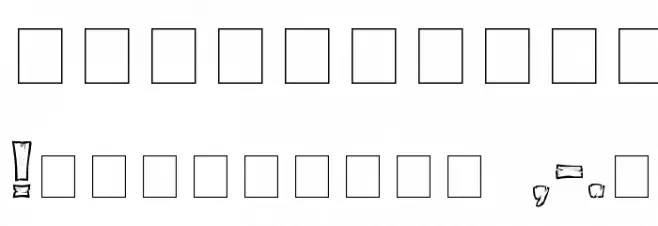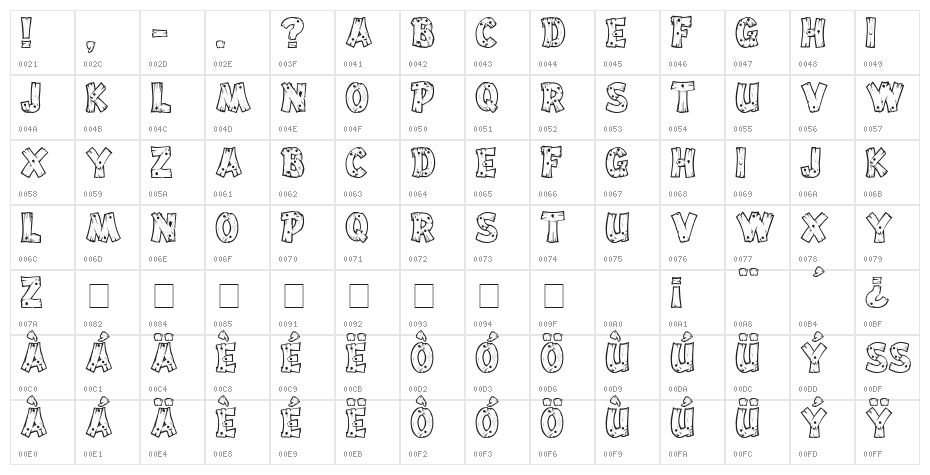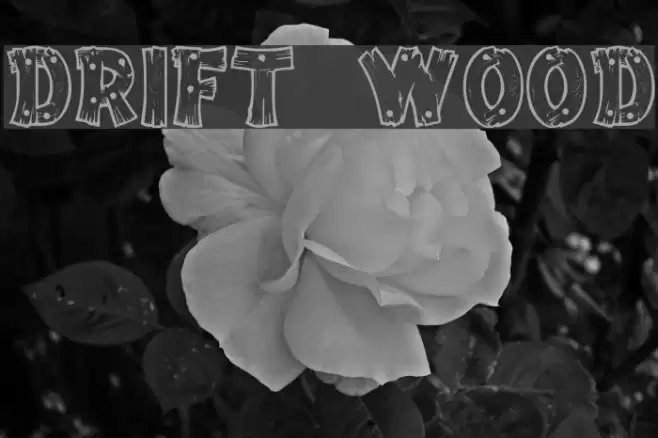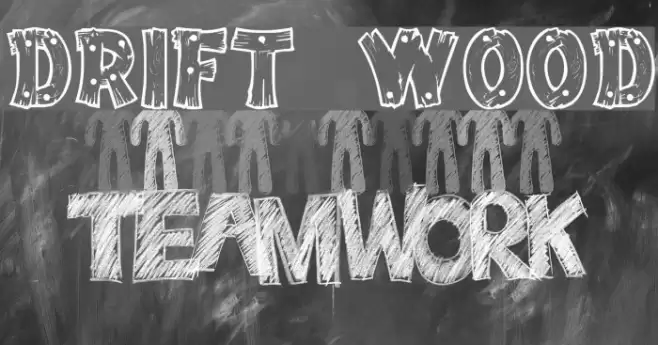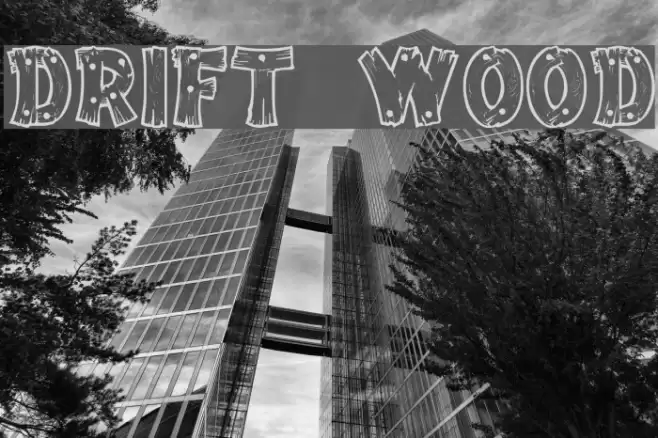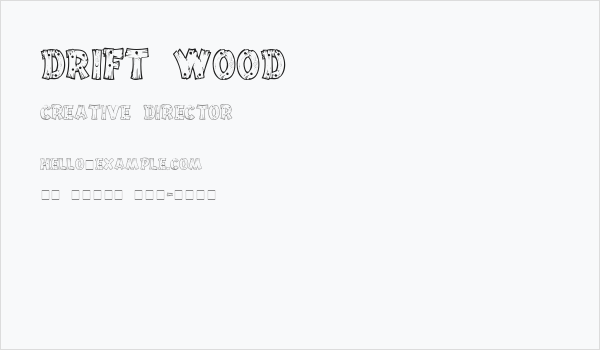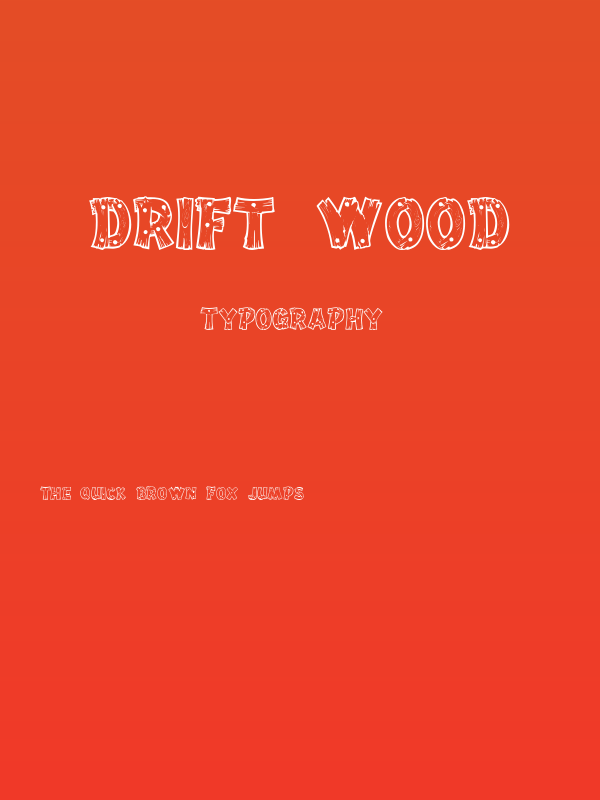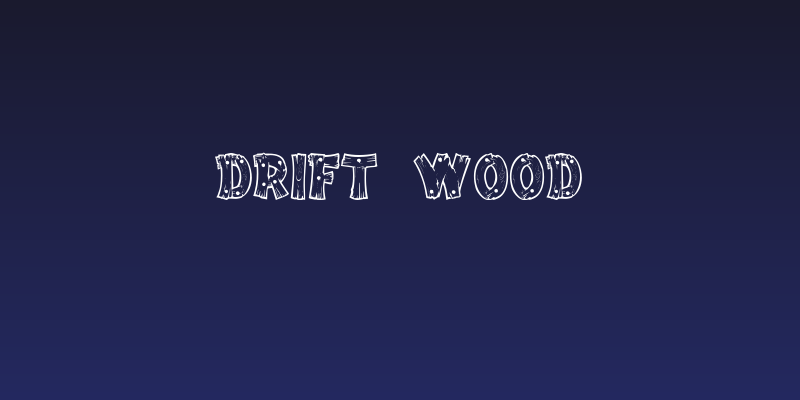
Drift Wood Font
Drift Wood Description
This font features a unique, hand-drawn style that mimics the texture and appearance of driftwood. Each letter is crafted with irregular edges and wood grain patterns, giving it a rustic and organic feel. The bold strokes and detailed textures create a sense of depth and dimension, making it stand out in any design. The font maintains a consistent weight throughout, with a slightly condensed width that enhances its compact and sturdy look. The character spacing is relatively tight, which helps in maintaining the cohesion of the text. This font is perfect for projects that require a natural, earthy aesthetic, such as outdoor event posters, eco-friendly product packaging, or nature-themed branding.
| Overall Style | Rustic, Organic |
| Proposed Projects | Ideal for nature-themed branding, eco-friendly packaging, and outdoor event posters. |